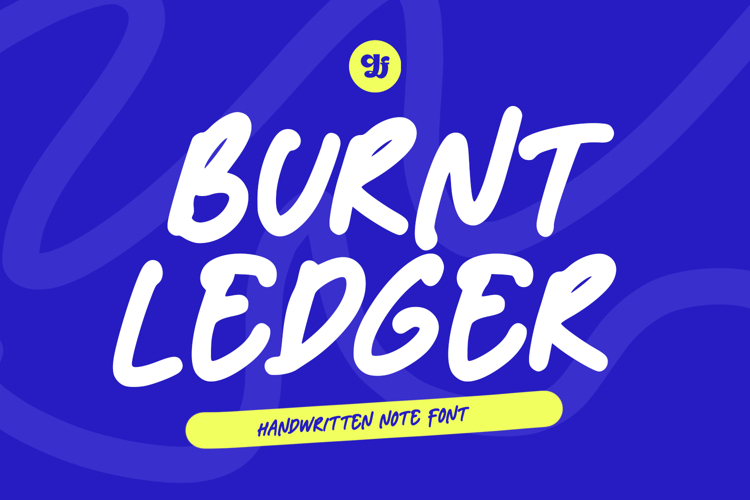
Burnt Ledger - The Handwritten Note Font
Burnt Ledger is a handwritten note font inspired by natural pen writing and everyday journaling. Designed with smooth strokes and simple structure, this font delivers a authentic, and easy-to-read appearance. Its casual flow and neat character create a friendly tone while maintaining clarity and consistency.
Burnt Ledger is perfect for notes, journals, planners, branding, social media graphics, quotes, and creative projects that need a genuine handwritten style with a clean and approachable feel.